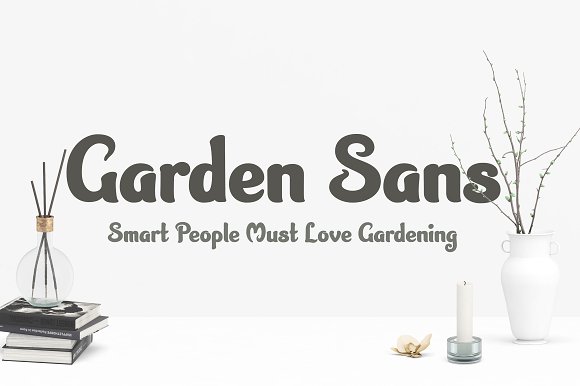
Unleash your imagination and step into a world where words dance and stories come alive with Garden Sans Font, a captivating script font family designed to transport you to the vibrant world of comic books. Created by the talented Darwinoo, Garden Sans is a bold and rounded semi-sans serif font that will add a touch of whimsy and excitement to your creative projects.
With over 370 unique glyphs, Garden Sans offers endless possibilities for expressing your unique style. Whether you're crafting captivating comic book pages, designing eye-catching posters, or adding a touch of playfulness to your branding, Garden Sans is the perfect font to bring your vision to life.
Immerse yourself in the enchanting world of Garden Sans and discover a font that will ignite your creativity and leave a lasting impression on your audience. Let your words take center stage and embark on an adventure where imagination knows no bounds.
Key features of Garden Sans Font:
* Over 370 unique glyphs for endless creative possibilities
* Bold and rounded semi-sans serif design for a striking visual impact
* Perfect for comic books, posters, branding, and more
* Designed to captivate and engage your audience
* A font that sparks imagination and brings stories to life